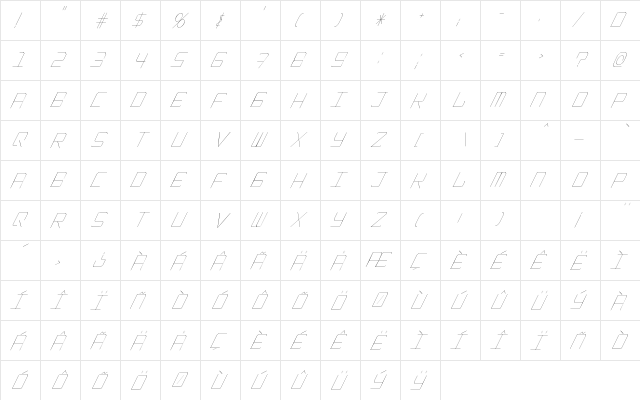
EpicenterThinItalic Regular
Design Context for EpicenterThinItalic Typeface
EpicenterThinItalic is a composed and adaptable typeface that performs quietly and consistently across a wide range of design contexts. Its italic angle brings a sense of urgency and motion to the letterforms. Its slender proportions lend an understated elegance to any composition.
Pro Tip: Use EpicenterThinItalic for emphasis, pull quotes, and subheadings where its slanted energy can add rhythm to the layout.